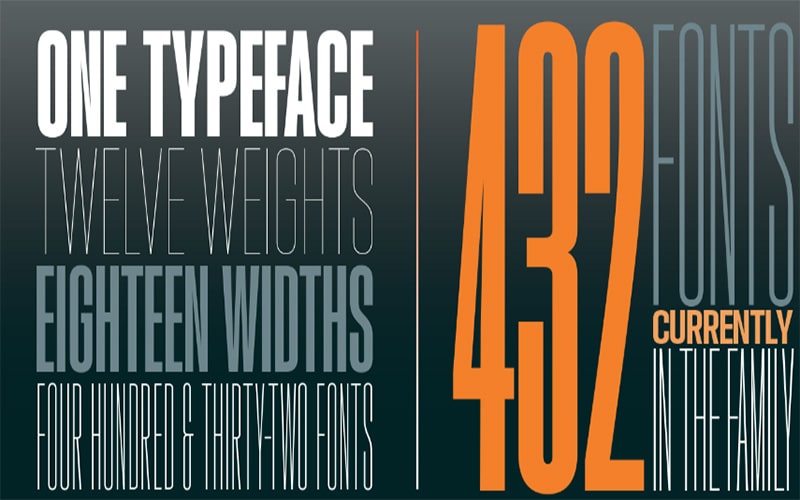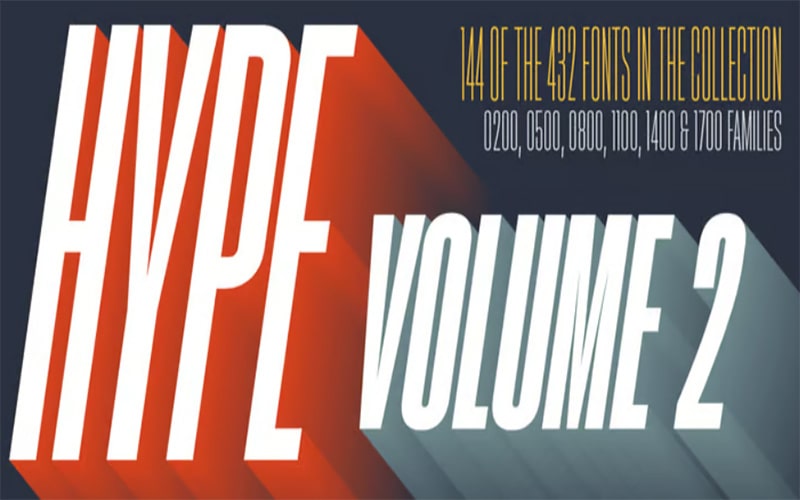
Hype Vol 2 Font is an elegant display and sans-serif typeface. The subfamily of this font is regular and contains 144 different styles.
Neil Summerouris the famous designer who took charge of designing this stunning font. This font is published by Positype. He designed this font to give an amazing look to your projects.
This amazing font can be used for creating company logo designs, mural designs, and social media post designs and also for designing different things t-shirts, mugs, blouses, pants, and other clothes.
A lovely texture-free version font is available in all lowercase, uppercase, and capital letters, as well as 58 unique characters. Let’s look at the texture for a moment.